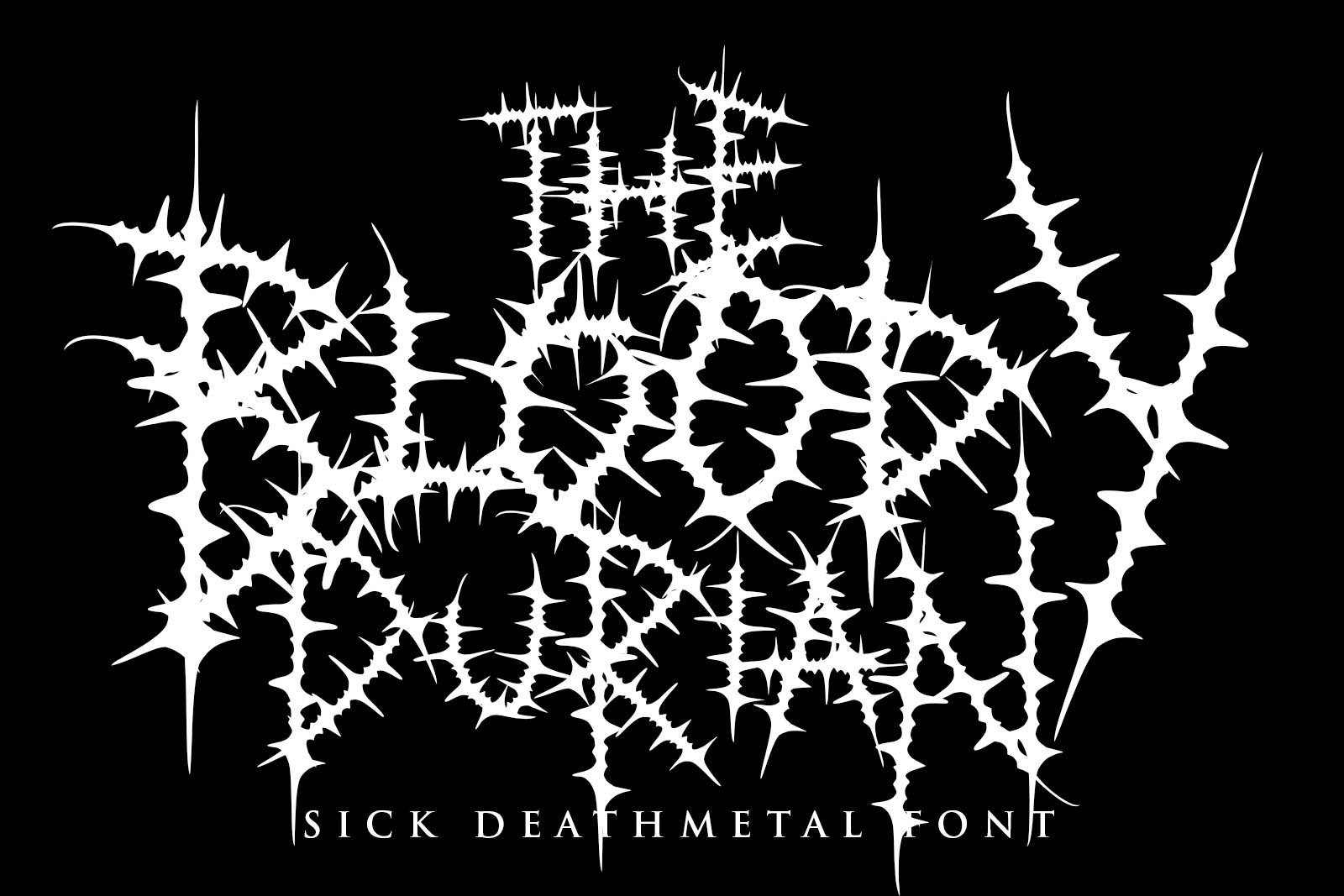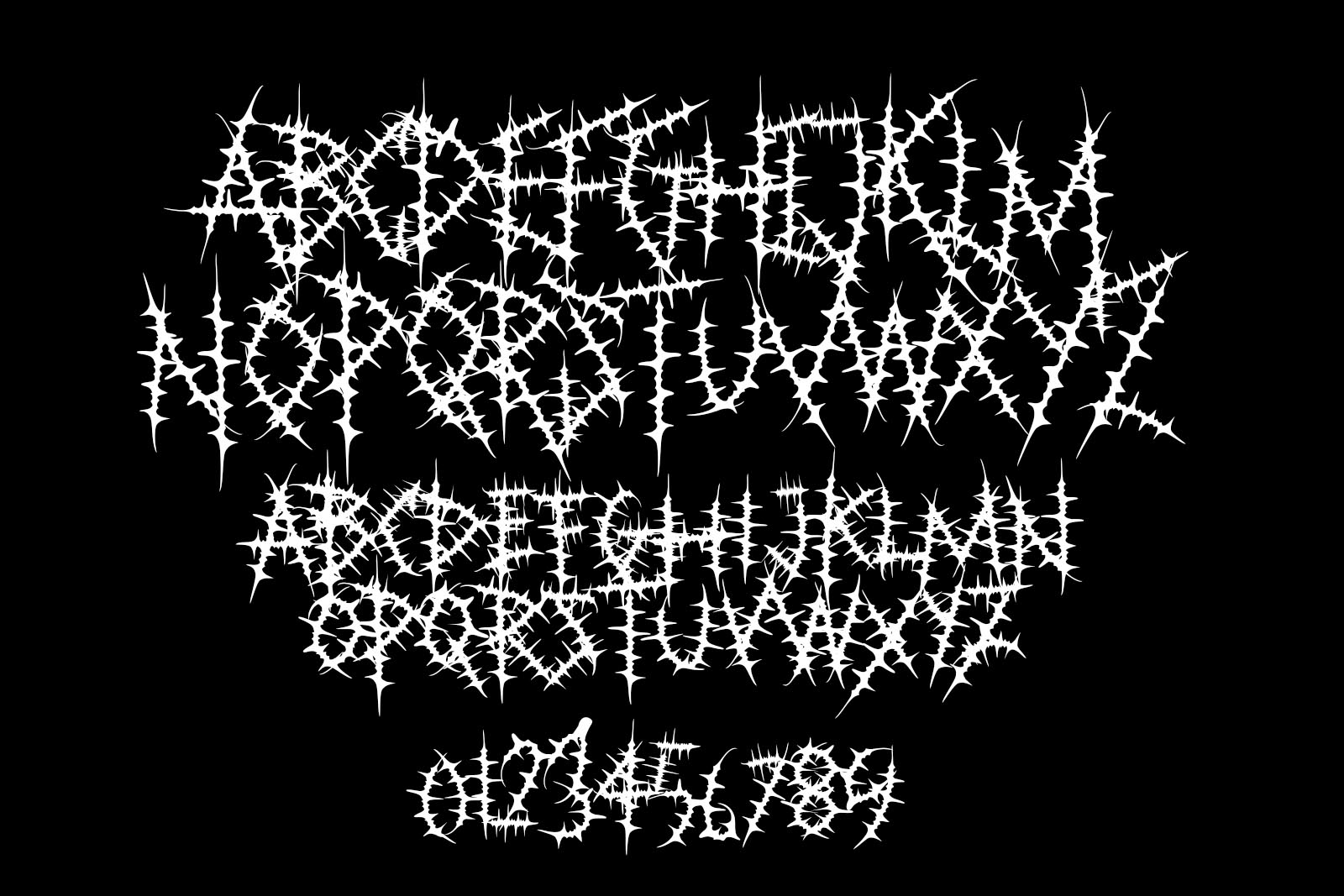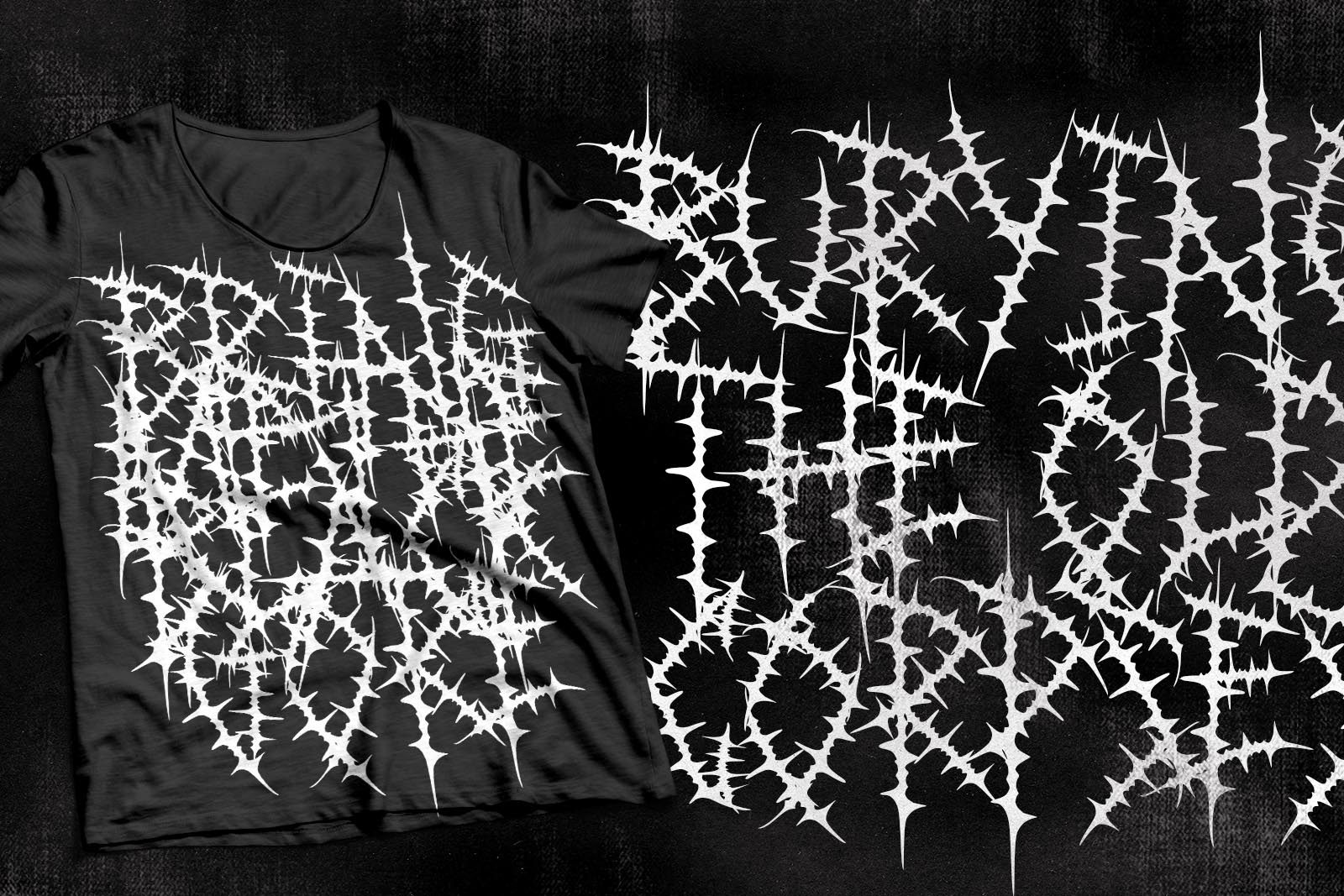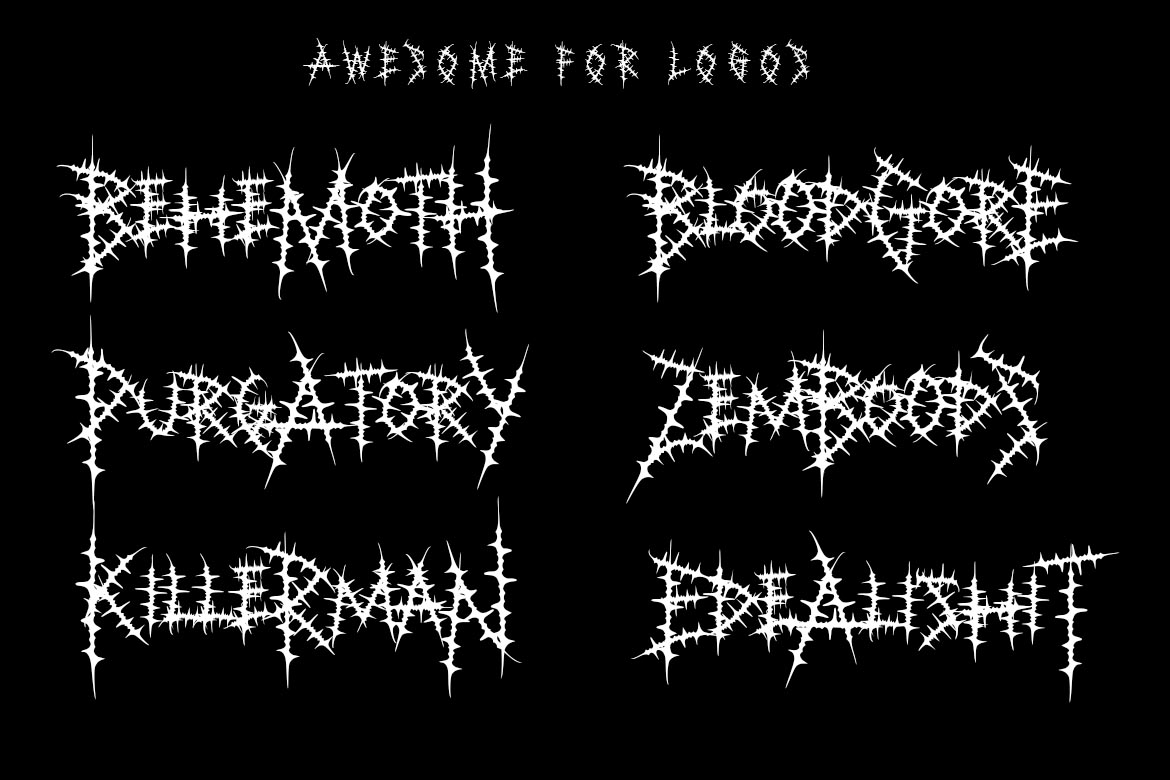
Bloody Durian - Sick Black Metal Font
Bloody Durian – Sick Deathmetal Font
Enter the pit with Bloody Durian, a viciously spiked deathmetal font inspired by the brutal thorns of a durian fruit and the raw aggression of underground metal scenes. Its chaotic, sharp-edged forms are born to tear through album covers, band logos, merchandise, and extreme artwork. Unreadable? That’s the point. Sick, sharp, and savage — this is not for the faint-hearted.
Perfect for:
• Deathmetal & goregrind logos
• Brutal band merch
• Horror-themed visuals
• Extreme music branding
Let your design rot beautifully in chaos.